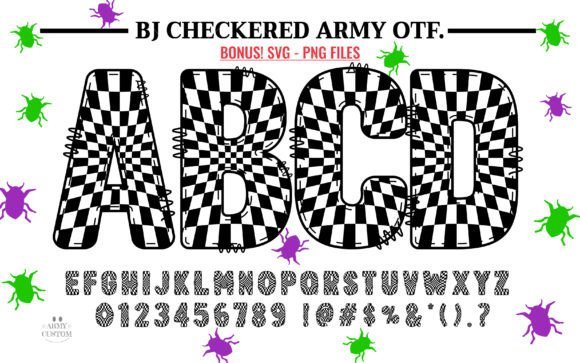
Get Ready to Cast a Spell with the Checkered Army Font
Have you ever stared at a blank canvas, eager to bring a design to life, but struggling to find the perfect font to set the tone? That’s when the magic happens, and you stumble upon the perfect combination of style and whimsy. For designers and crafters, the Checkered Army Font is a game-changer, adding an unmistakable touch of magic to any project.
This enchanting font is perfect for those who want to add a dash of personality to their arts and crafts projects, scrapbooking endeavors, or stationery and cards. With its spellbinding and distinct Halloween Doodle Font Color, you’ll be able to create stand-out products that capture every eye. Whether you’re designing blog banners, backgrounds, or transforming interiors with mesmerizing wall art, the Checkered Army Font is a vibrant toolkit that’s sure to make your creations shine.
- Unique Characteristics: The font’s distinctive checkered pattern and bold lines give it a unique, eye-catching appearance, making it ideal for use in headlines, titles, and other display typography.
- Font Style: The font is available in a single weight, but its bold and geometric design make it suitable for use in various font styles, from sans-serif to script.
Designer Review: Checkered Army Font
Overall, I think the Checkered Army Font has some great qualities, but also a few areas where it falls short. Let’s dive in!
- Unique aesthetic: The font’s checkered pattern is definitely eye-catching and sets it apart from more traditional fonts.
- High contrast: The bold lines and contrasting colors make it easy to read, even at smaller sizes.
- Fun and playful vibe: Perfect for designs that need a bit of whimsy and personality.
- Limited versatility: While it’s great for playful designs, it may not be the best choice for more formal or professional projects.
- Distractions: The checkered pattern can be distracting, especially if used extensively throughout a design.
- Lack of subtlety: The font’s bold nature may overpower other design elements, making it difficult to balance.
While the Checkered Army Font has its strengths, it’s not a one-size-fits-all solution. It’s perfect for designs that need a bit of flair and personality, but may not be the best choice for more subdued or professional projects.
The Checkered Army Font is a bold and eye-catching font that’s perfect for:
- Creating attention-grabbing headlines and titles.
- Designing bold and edgy graphics and posters.
- Adding a touch of industrial chic to your designs.
Remember to use the font sparingly and in moderation to avoid overwhelming your design.